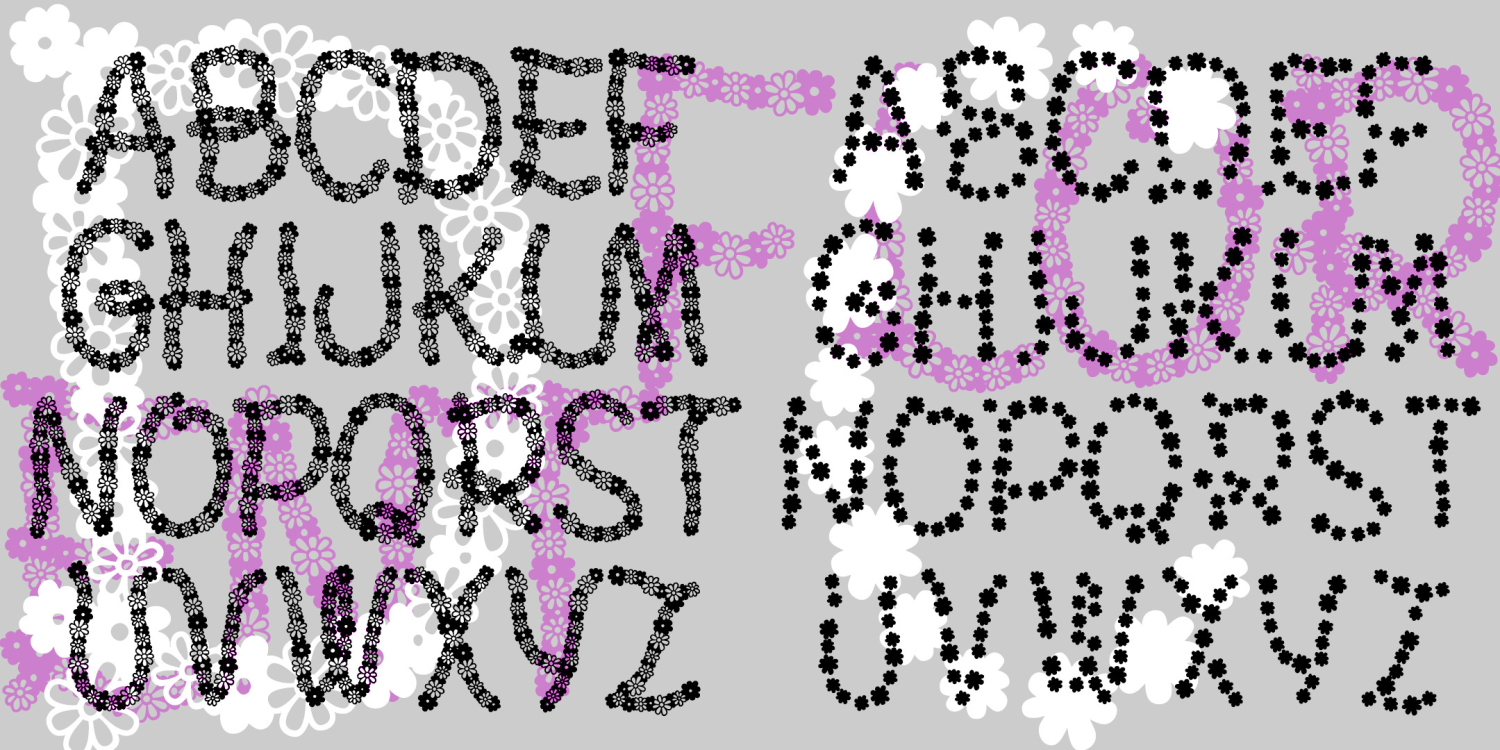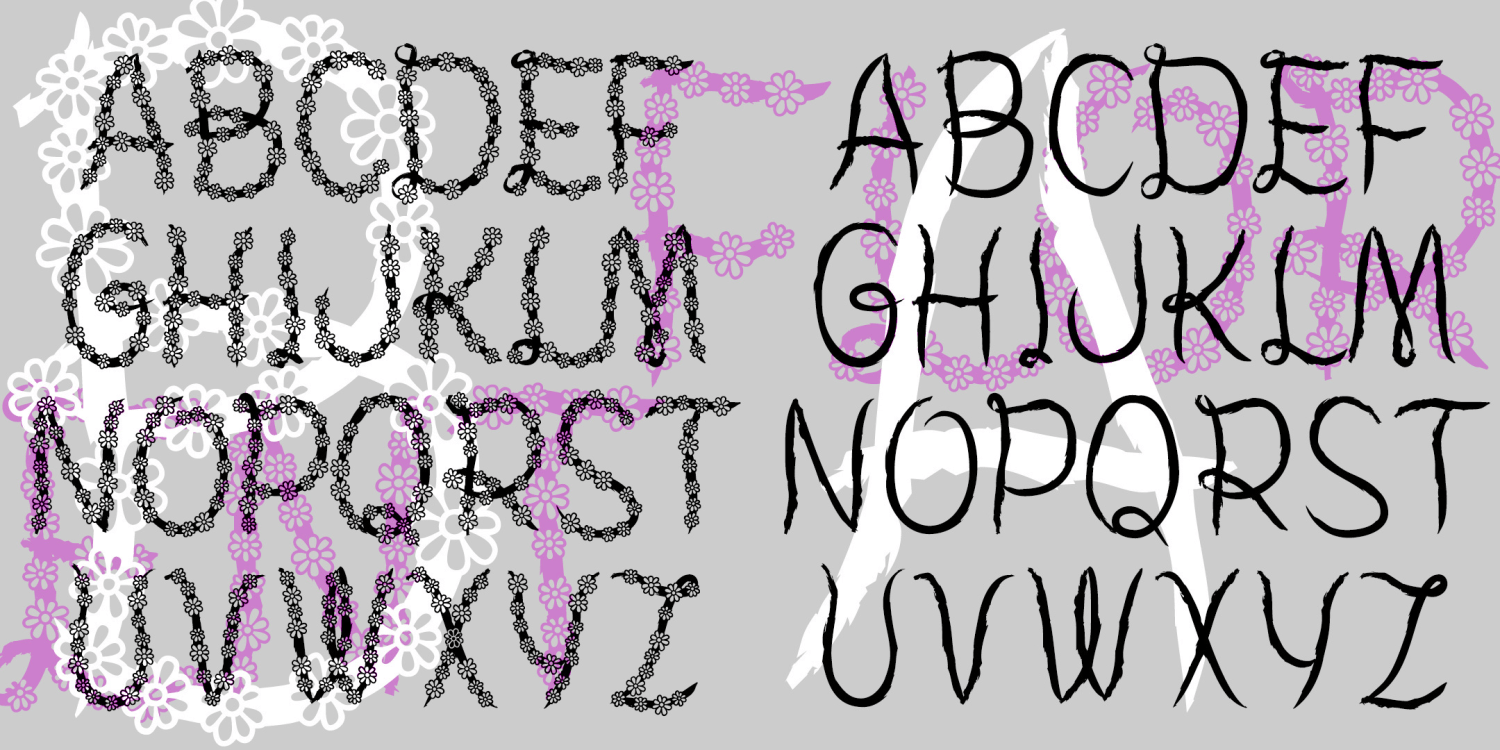
Florent
The FLORENT fonts are full of beautiful floral detail. They were inspired by an historical sample called "Garland" in one of Dan X. Solo's collections. My fonts are completely redrawn, refined and expanded. I've divided the details up into 4 fonts that can be used separately or layered in combinations to create multicolor effects. Florent D has the branches full of white and dark flowers. Florent C is a "fill" font with the flowers alone. Florent B has white flowers on the branches. Florent A is bare branches or vine.